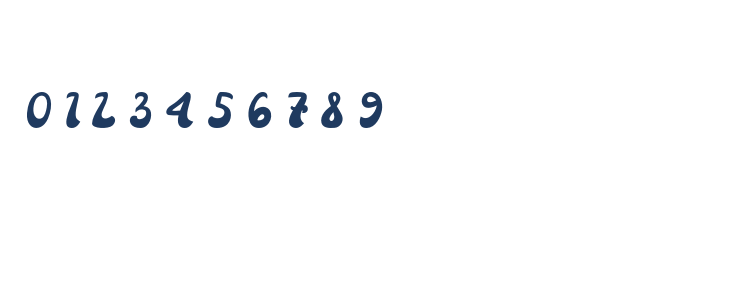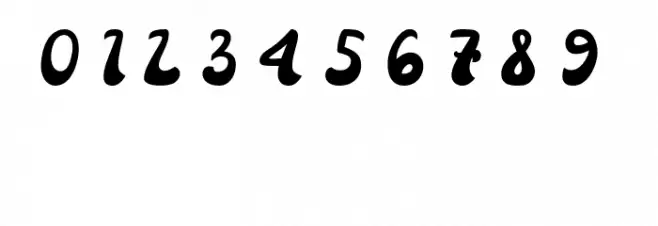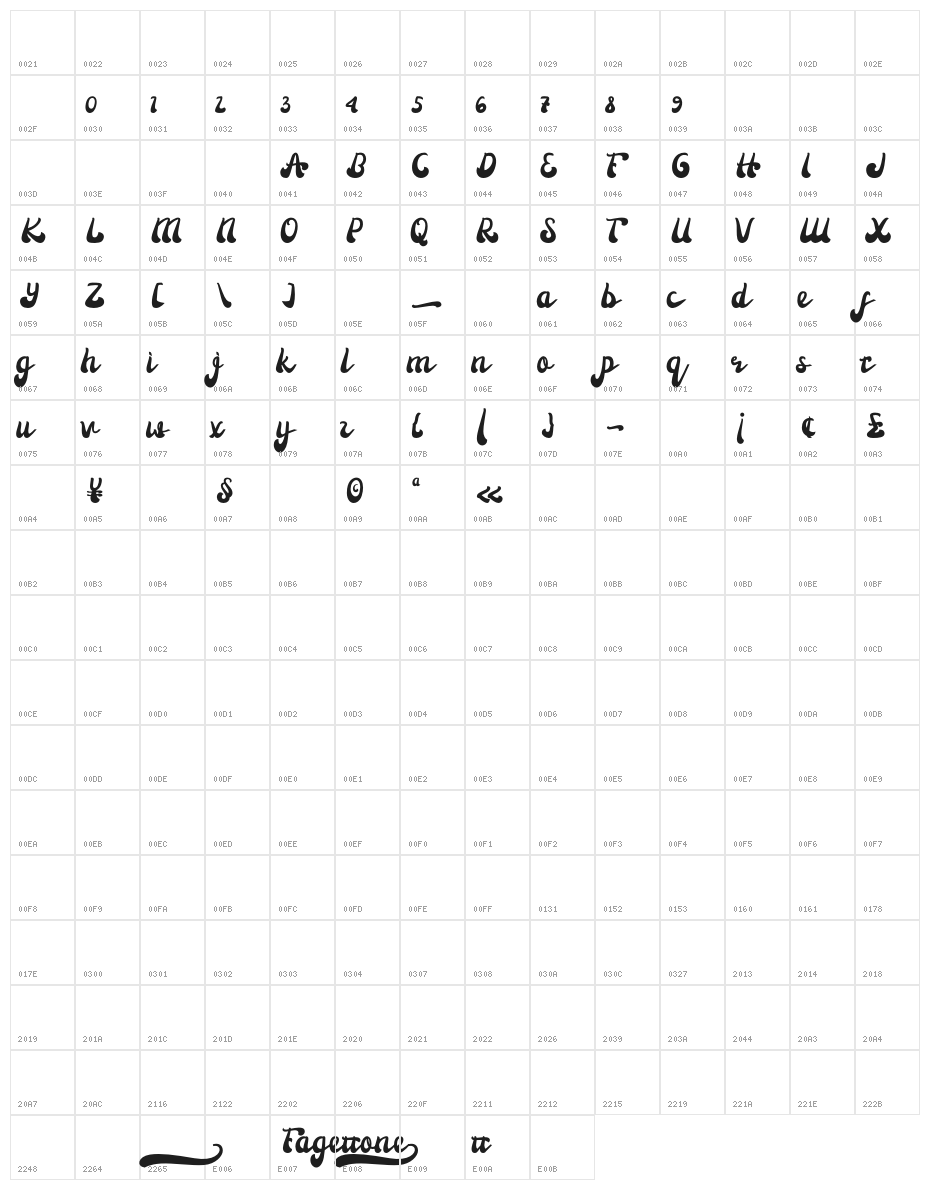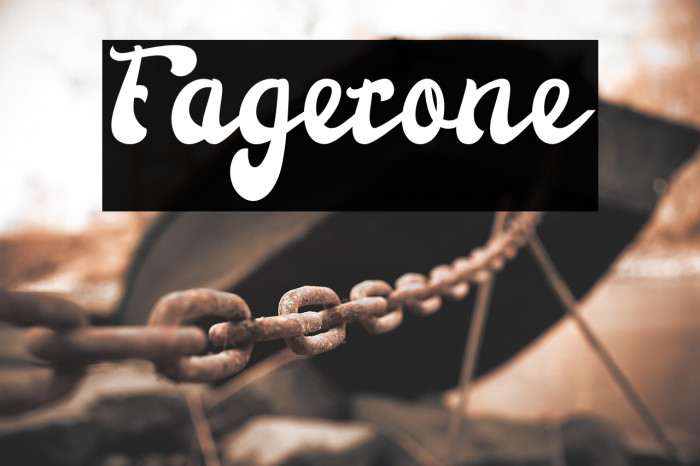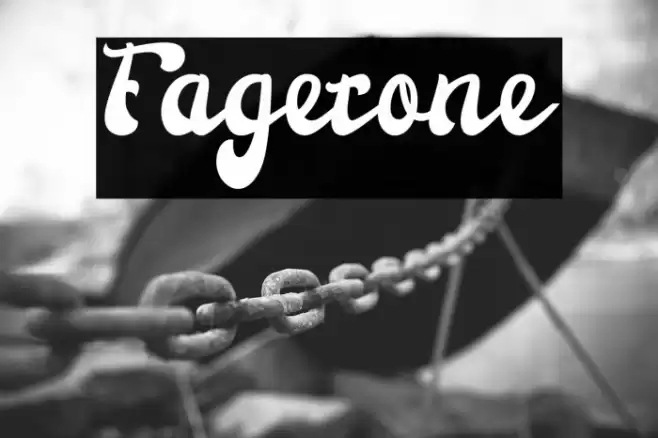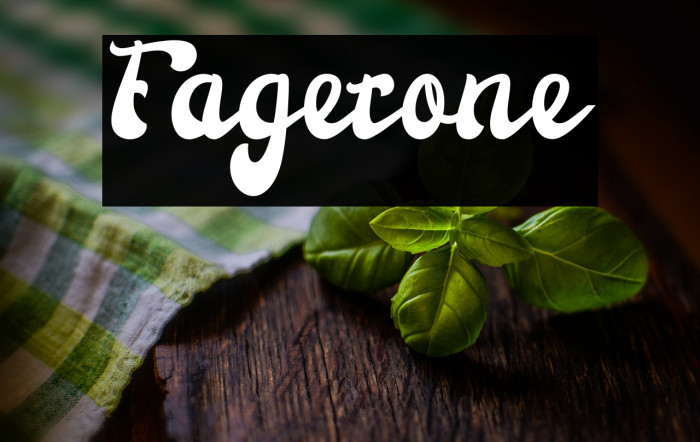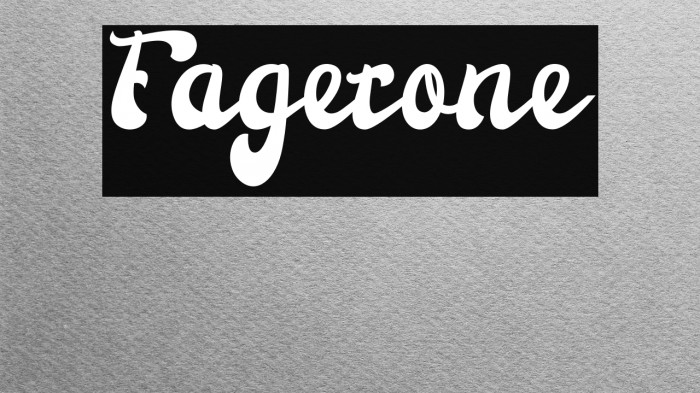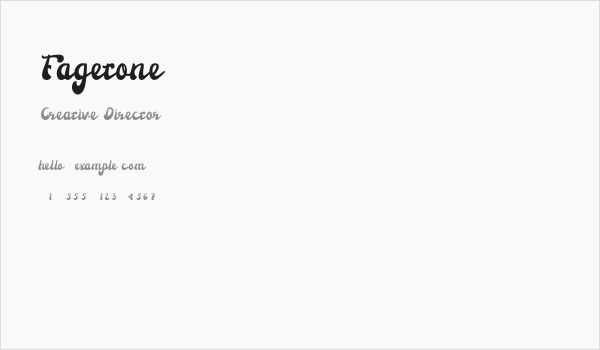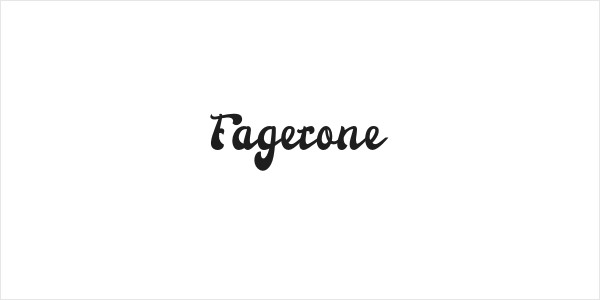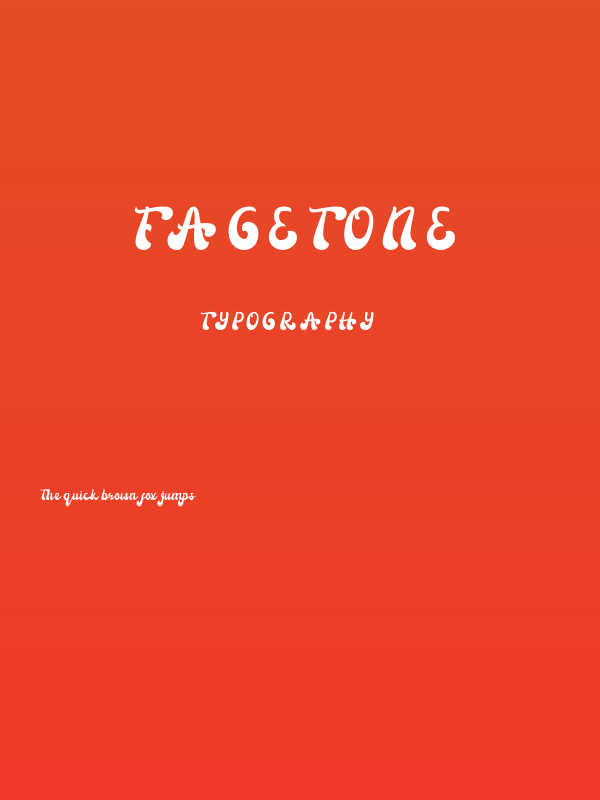
Fagetone Font
Fagetone Description
This font features a bold, flowing script style with a playful and dynamic appearance. The characters are connected, giving it a handwritten feel, while maintaining a consistent thickness throughout. The uppercase letters are slightly more ornate, with subtle flourishes that add a touch of elegance. The lowercase letters are smooth and rounded, enhancing readability. Numbers and special characters follow the same stylistic cues, ensuring uniformity across all elements. The overall design is both modern and classic, making it versatile for various applications.
Use CaseLogos, Invitations, Greeting Cards
Proposed ProjectsIdeal for branding, invitations, greeting cards, and creative projects that require a personal touch.